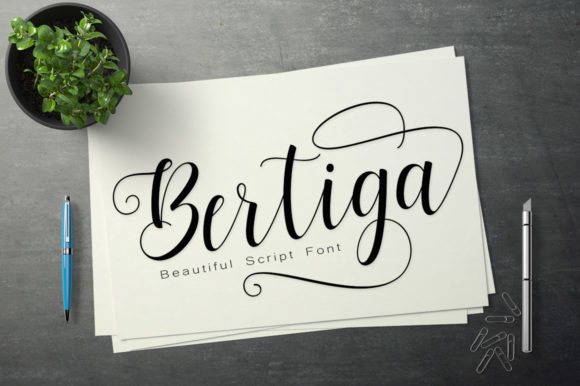
The Elegant Bertiga Font: A Designer’s New Best Friend
I’ll never forget the time I was working on a wedding invitation project, and my client asked for a font that exuded elegance and sophistication. I scoured the internet, trying out font after font, but nothing seemed quite right. That was until I stumbled upon the Bertiga font. This fresh, handmade calligraphy font has been a game-changer for me, and I’m excited to share it with you!
A Personal Review: What I Love About Bertiga
So, what makes Bertiga so special? Here are a few things that I absolutely love:
- ✨ Elegant and feminine feel: Bertiga has a luxurious touch that instantly elevates any design project.
- ✅ Handmade charm: The font’s handmade quality gives it a unique, personal feel that’s perfect for projects where you want to add a touch of warmth.
- 💫 Versatility: Whether you’re designing a greeting card, quote, poster, or branding material, Bertiga is the perfect choice.
While Bertiga is an amazing font, there are a few things to keep in mind:
- 🤔 Legibility at small sizes: Like many calligraphy fonts, Bertiga can be a bit tricky to read at very small sizes. Make sure to test it out before committing to a specific size.
- ⚠️ Limited use in body text: While Bertiga is stunning for headings and titles, it’s not the best choice for body text. Stick to a clear, readable font for longer blocks of text.
- Experiment with OpenType features like ligatures and stylistic alternates to add some extra flair to your design.
The Story Behind Bertiga
Bertiga was designed with the intention of creating a beautiful, elegant font that would add a touch of luxury to any design project. The designer aimed to create a font that was both feminine and sophisticated, with a handmade charm that would set it apart from other fonts.
| Font Name | Bertiga Font |
| Author | Rudistudio |
| Is Bertiga suitable for body text? | No, Bertiga is best used for headings, titles, and short blocks of text. For longer body text, choose a clear, readable font. |
| Does Bertiga support OpenType features? | Yes, Bertiga supports OpenType features like ligatures, stylistic alternates, and glyphs. Experiment with these features to add some extra flair to your design. |